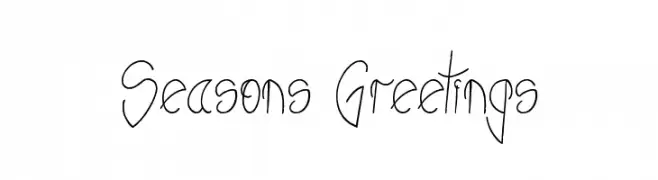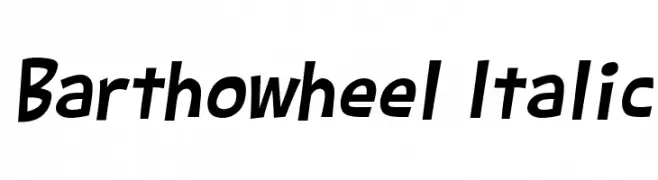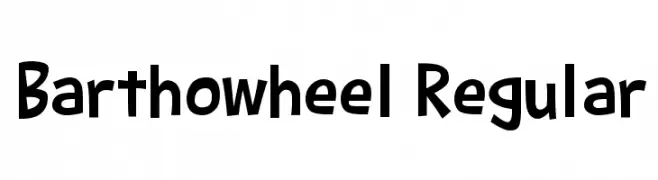
( Font by Jonathan Harris - www.tattoowoo.com )
A whimsical, flowing script font with elongated, irregular letterforms.
( Font by Jayvee D. Enaguas - grandchaos9000.deviantart.com )
A bold, italic font with a modern and dynamic style.
( Font by Jayvee D. Enaguas - grandchaos9000.deviantart.com )
A playful, bold font with a hand-drawn, rounded style.
( www.vermidirouge.com )
A playful, doodle-inspired font with bold, rounded characters and cartoonish expressions.
( fonts.pistocasero.com )
A decorative, geometric font with abstract and artistic elements.
( Font by Jonathan Harris - www.tattoowoo.com )
A bold, geometric font with a modern and decorative style.